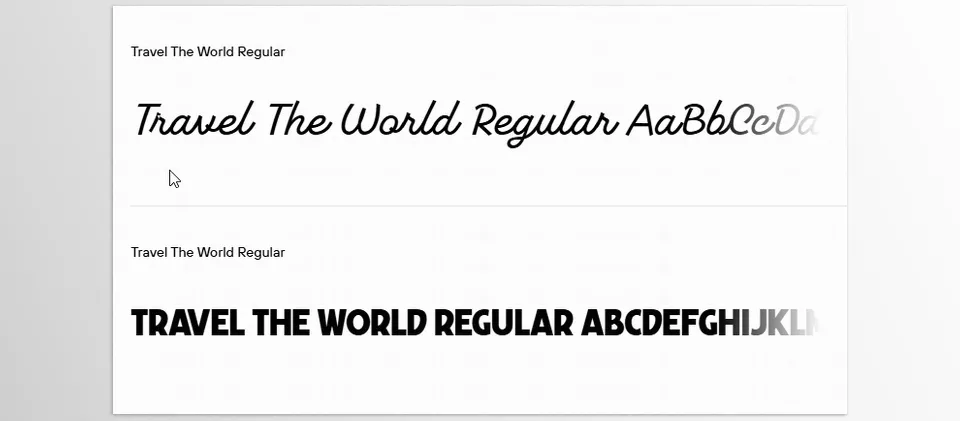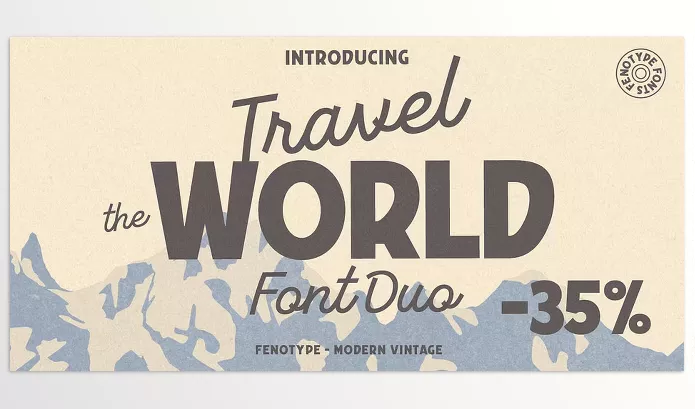
FONTSPRING – Travel The World Font Family is based on 20th-century travel poster fonts. This duo manufactured by Fenotype comprises Emil Bertell’s design, which includes a robust sans with Art Nouveau influences and a low-contrast script with a large x-height.
• Art Nouveau Inspiration: Provides subtle vintage flair borrowed from old travel advertisements.
• Script and Sans Duo: Comprises a bold and geometric Sans alongside a script featuring a sizeable x-height.
• OpenType Features: Additive options include swash and stylistic as well as titling alternates.
• Alternates: Multiple choices of various styles are available.
• Versatile Display Use: Works exceptionally well for posters, branding and design, editorial designs, etc.
• No Effort Required For Pairing: All styles pair well with each other and other typefaces.
Image 1: A timeless blend of vintage charm and modern versatility, perfect for eye-catching designs.
FONTSPRING - Travel The World Font Family - A timeless blend of vintage charm and modern versatility, perfect for eye-catching designs.